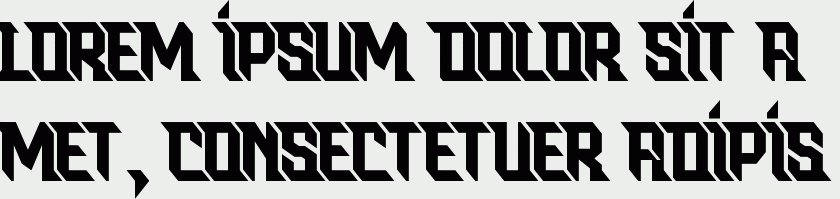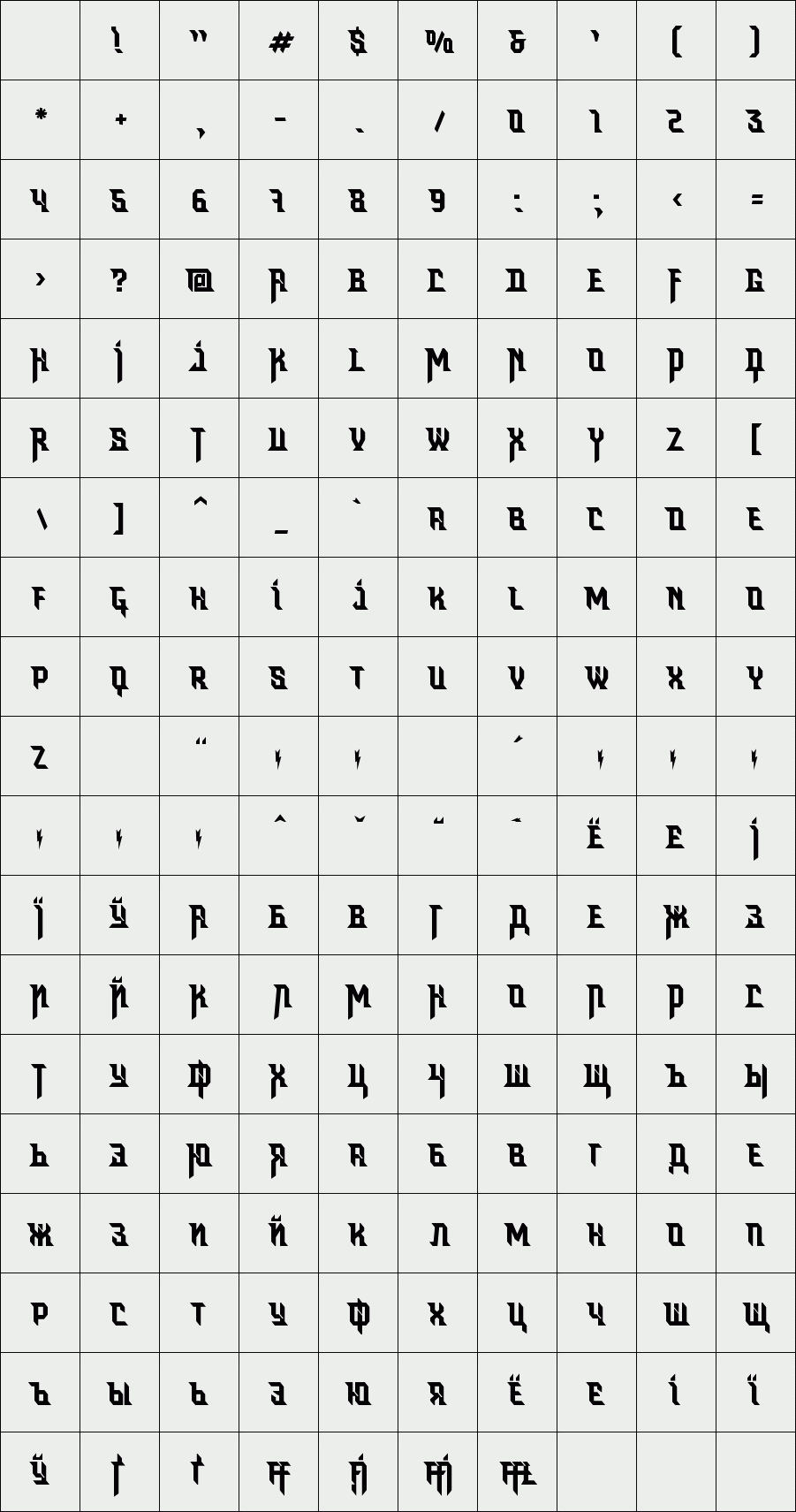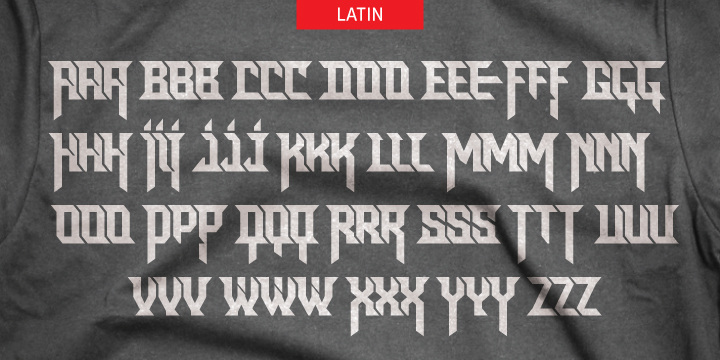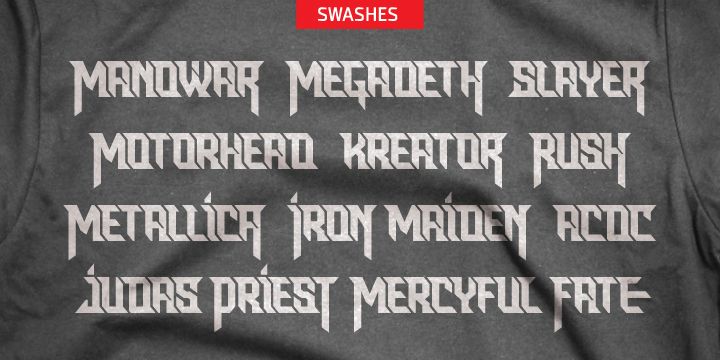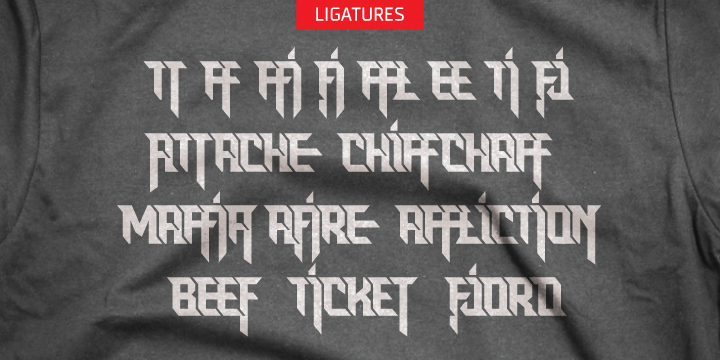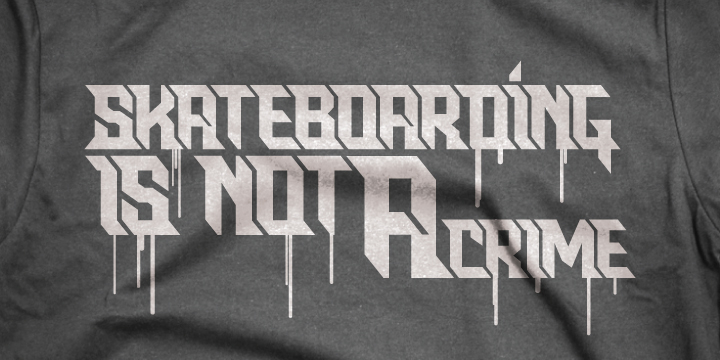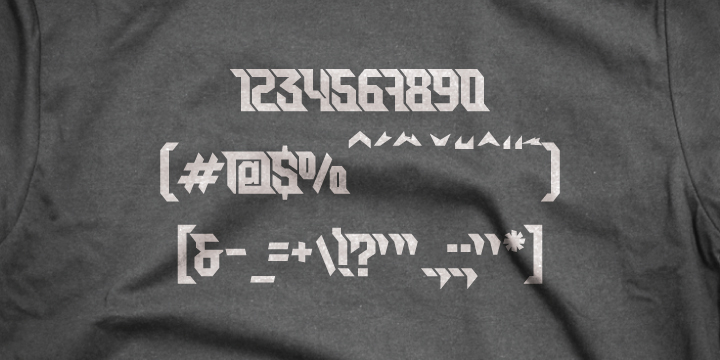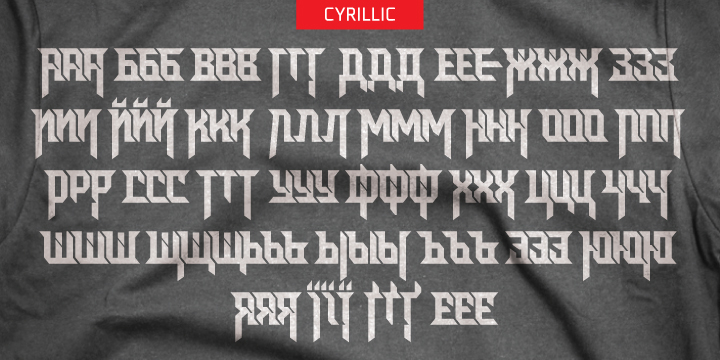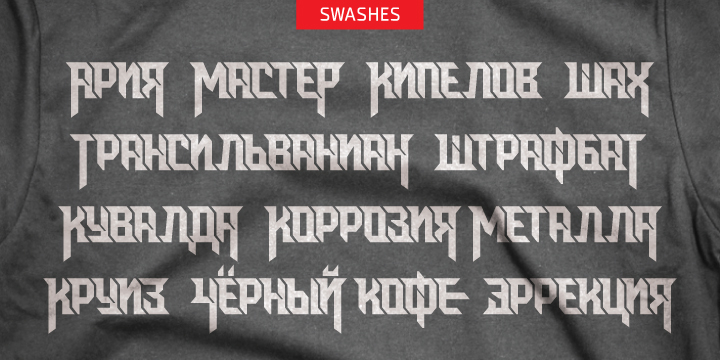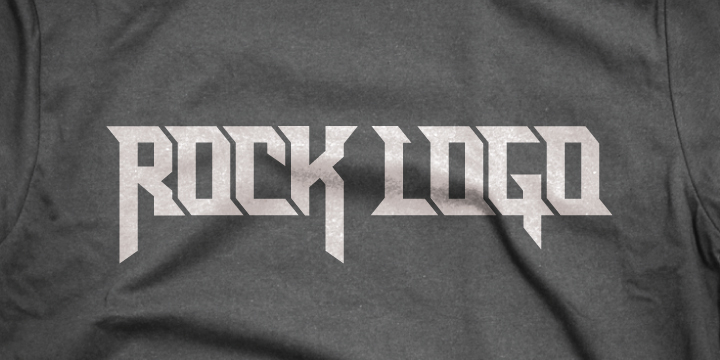
Rock Logo
Rock Logo is an all caps, display typeface, inspired by old cool rock/metal band logos. It has many alternates, swashes and ligatures.
Gaslight Type Foundry